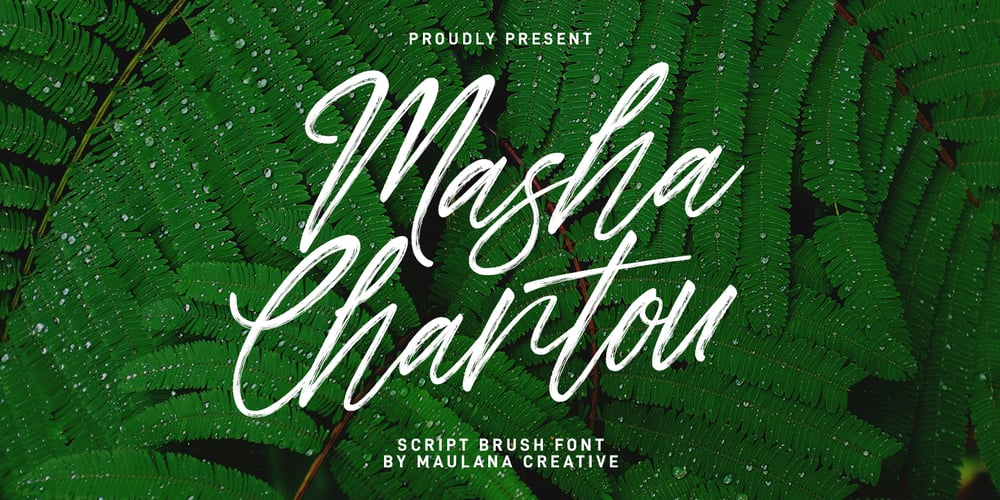
Masha Chantou Font Family was designed by Gilang Maulana and published by Maulana Creative. Masha Chantou contains 1 styles and family package options. Give your designs an authentic brush handcrafted feel. “Masha Chantou Script Brush Font” is perfectly suited to signature, stationery, logo, typography quotes, website header, branding and more.Thanks for use this font.Maulana Creative